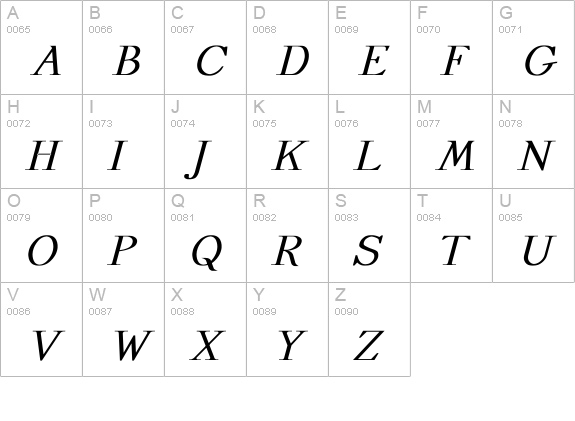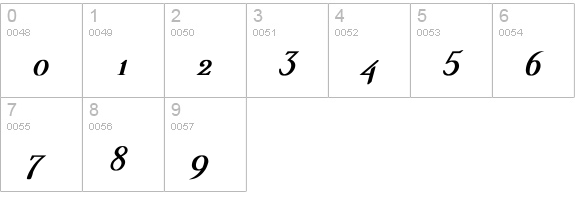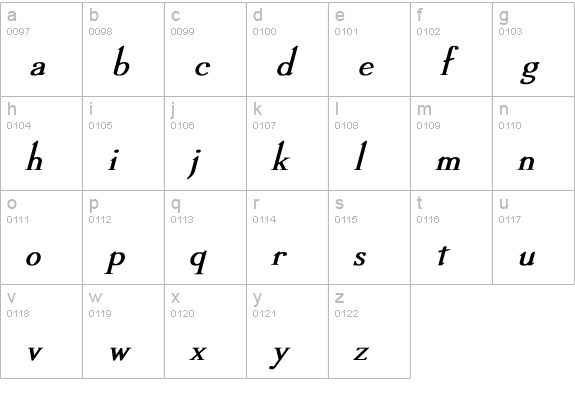
Dickens Bold Italic Font Details
Dickens Bold Italic is a strong, high-contrast, italic variant in the Dickens typeface family \xE2\x80\x94 well suited to headlines, attention-grabbing titles, and strong calls-to-action.
Introducing Dickens Bold Italic font - a captivating and versatile typeface that effortlessly combines elegance with a touch of boldness. This font exudes a classic charm that is perfect for a wide range of design projects, from invitations to branding to editorial layouts. The bold italic style adds an extra flair and personality to your text, making it stand out and grab the attention of your audience. But the best part? Dickens Bold Italic font is completely free to download at FontsMarket.com! Now you can enhance your designs with this stunning font without any additional cost, making it a valuable addition to your font collection. Don't miss out on the opportunity to elevate your creative projects with Dickens Bold Italic font - download it today and start creating beautiful designs effortlessly.